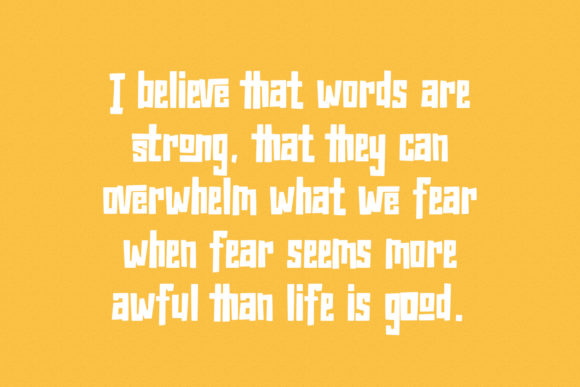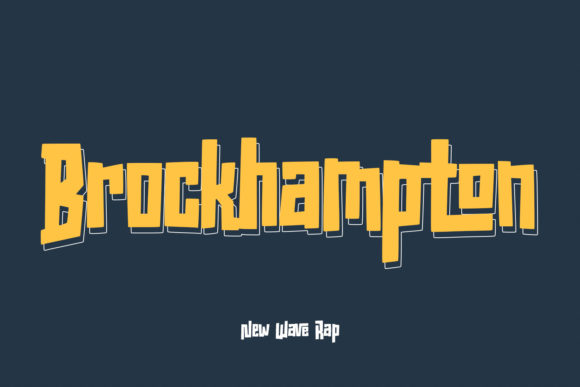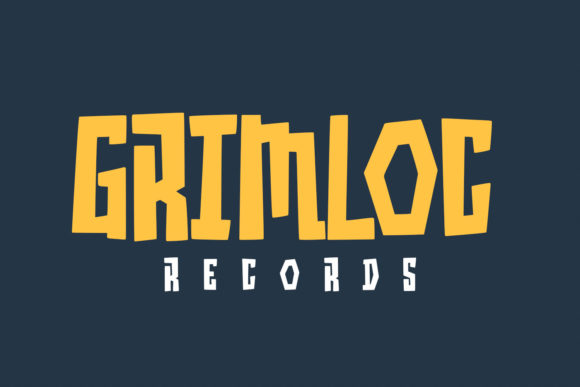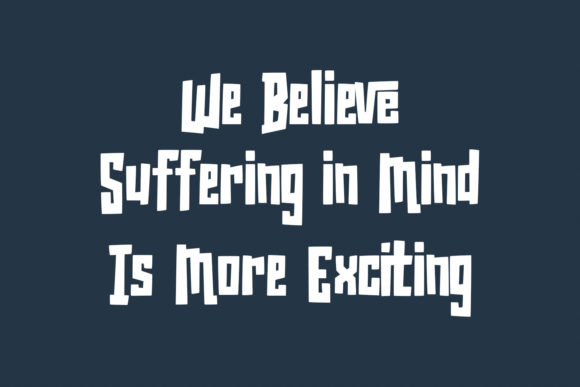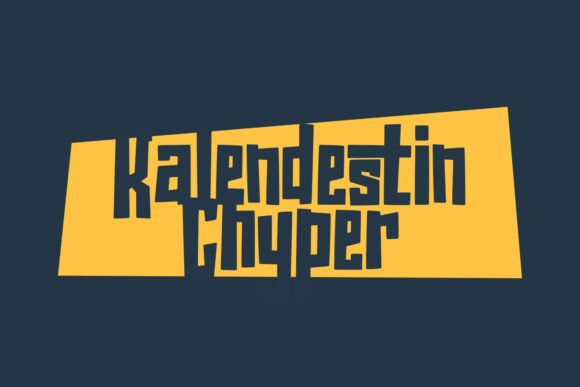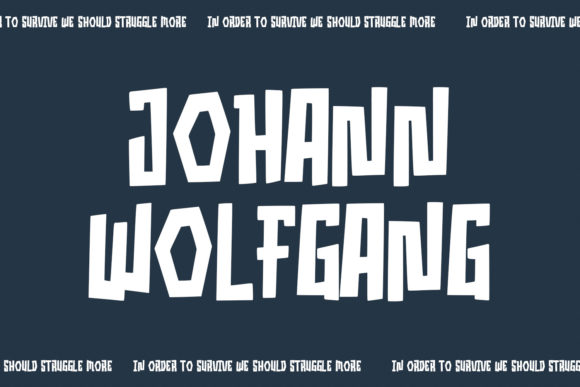
Grimblocks Font: The Ultimate Display Font for Bold Designs
Are you tired of using the same old fonts for your designs? Look no further than Grimblocks, a bold, thick, and squared lettered display font that’s perfect for adding a touch of personality to your creations. In this article, we’ll dive into the world of Grimblocks and explore its features, uses, and benefits for designers and crafters.
What is Grimblocks Font?
Grimblocks is a unique and eye-catching display font that’s designed to make a statement. Its bold, thick, and squared letters give it a distinctive look that’s perfect for cartoon-related designs, children’s games, and any other creation that requires a fun and playful touch.
Whether you’re a designer, crafter, or DIY enthusiast, Grimblocks is an amazing choice for anyone looking to add some personality to their work. Its versatility and legibility make it suitable for a wide range of applications, from titles and headings to labels and signage.
Key Features of Grimblocks Font
- Bold and Thick Letters: Grimblocks features bold and thick letters that are sure to grab attention.
- Squared Lettering: The font’s squared lettering gives it a unique and modern look.
- Display Font: Grimblocks is designed specifically as a display font, making it perfect for titles, headings, and other prominent text.
- Fun and Playful: The font’s playful and fun design makes it ideal for cartoon-related designs, children’s games, and other creative projects.
Uses of Grimblocks Font
Grimblocks is a versatile font that can be used in a variety of applications, including:
- Cartoon-related designs: Grimblocks is perfect for creating fun and playful cartoon characters, titles, and logos.
- Children’s games: The font’s playful design makes it an excellent choice for children’s games, puzzles, and educational materials.
- Signage and labels: Grimblocks can be used to create eye-catching signage and labels for businesses, events, and products.
- Graphic design: The font can be used in a variety of graphic design projects, including brochures, posters, and social media graphics.
Benefits of Using Grimblocks Font
So why choose Grimblocks font for your designs? Here are just a few benefits:
- Unique and eye-catching: Grimblocks is a one-of-a-kind font that’s sure to grab attention.
- Versatile: The font can be used in a variety of applications, from cartoon-related designs to signage and labels.
- Easy to read: Despite its bold and thick design, Grimblocks is surprisingly easy to read, making it perfect for titles and headings.
- Fun and playful: The font’s playful design adds a touch of personality to any design.
Tips for Using Grimblocks Font
Here are a few tips for getting the most out of Grimblocks font:
- Use it sparingly: While Grimblocks is a bold and eye-catching font, it can be overwhelming if used too much. Use it sparingly to add emphasis to titles and headings.
- Experiment with colors: Grimblocks looks great in a variety of colors, so don’t be afraid to experiment and find the perfect hue for your design.
- Pair it with other fonts: Grimblocks can be paired with other fonts to create a unique and visually appealing design.
In conclusion, Grimblocks font is a bold, thick, and squared lettered display font that’s perfect for adding a touch of personality to your designs. Its versatility, legibility, and fun design make it an excellent choice for designers, crafters, and DIY enthusiasts. Whether you’re creating cartoon-related designs, children’s games, or signage and labels, Grimblocks is sure to make a statement.